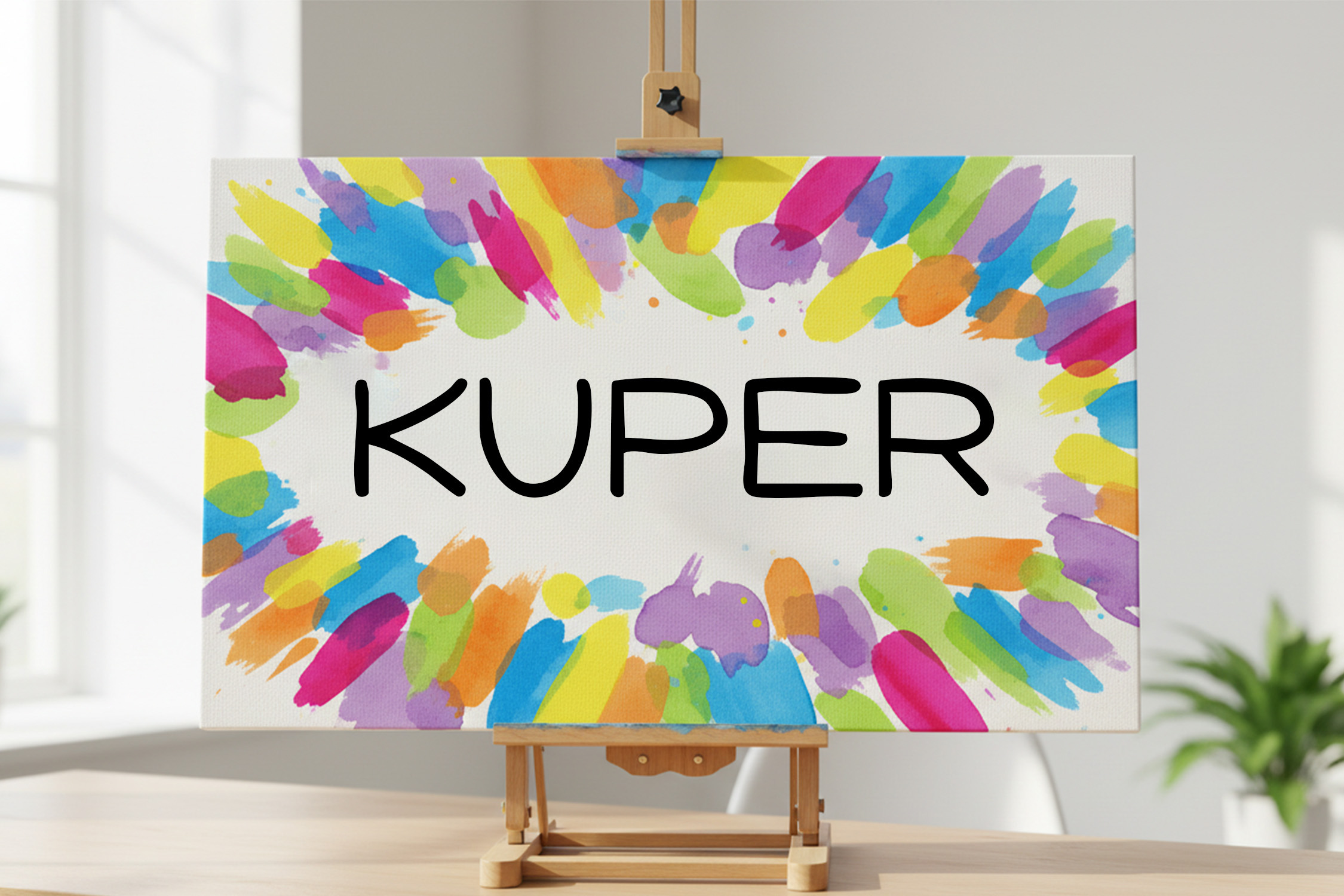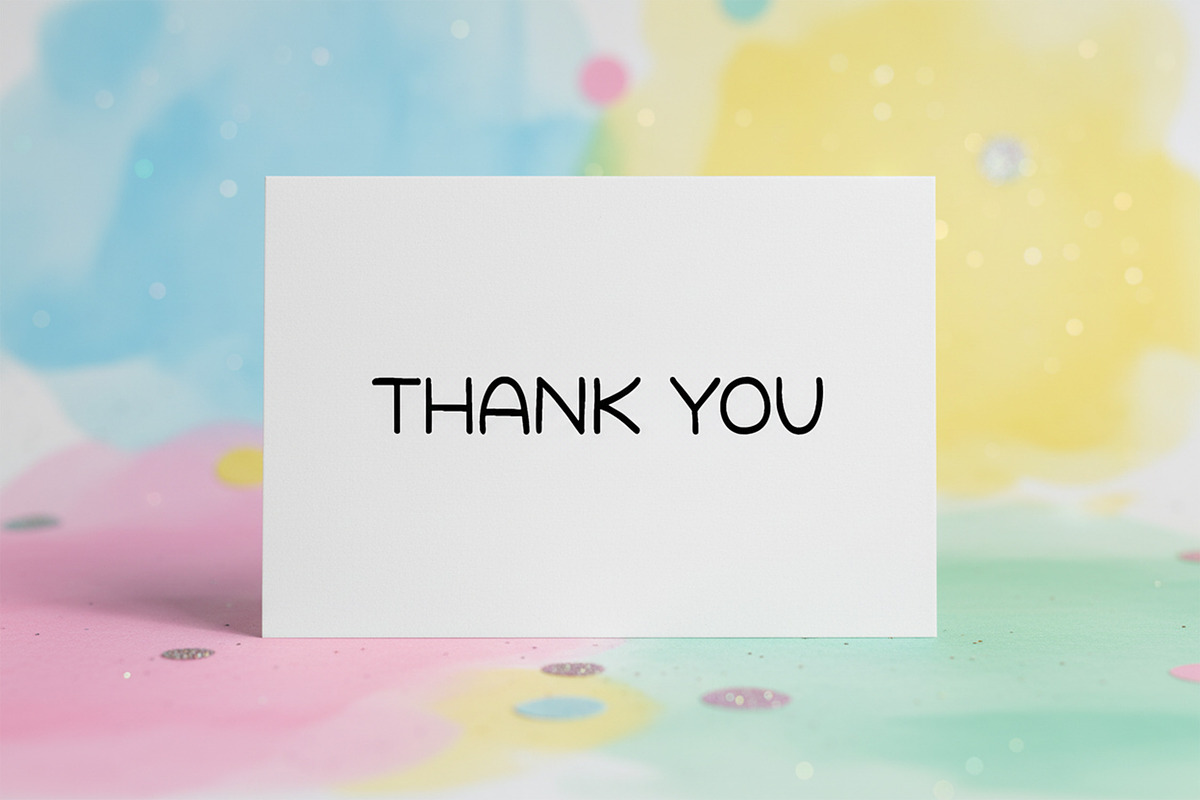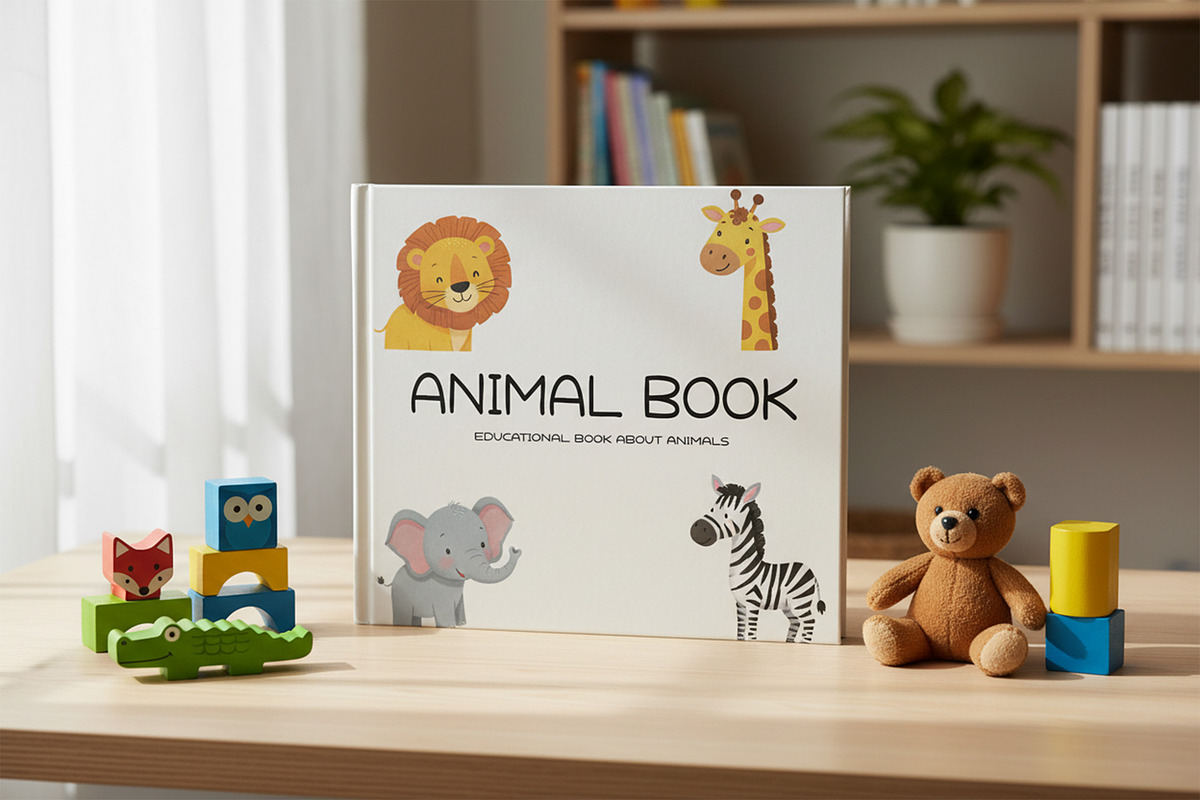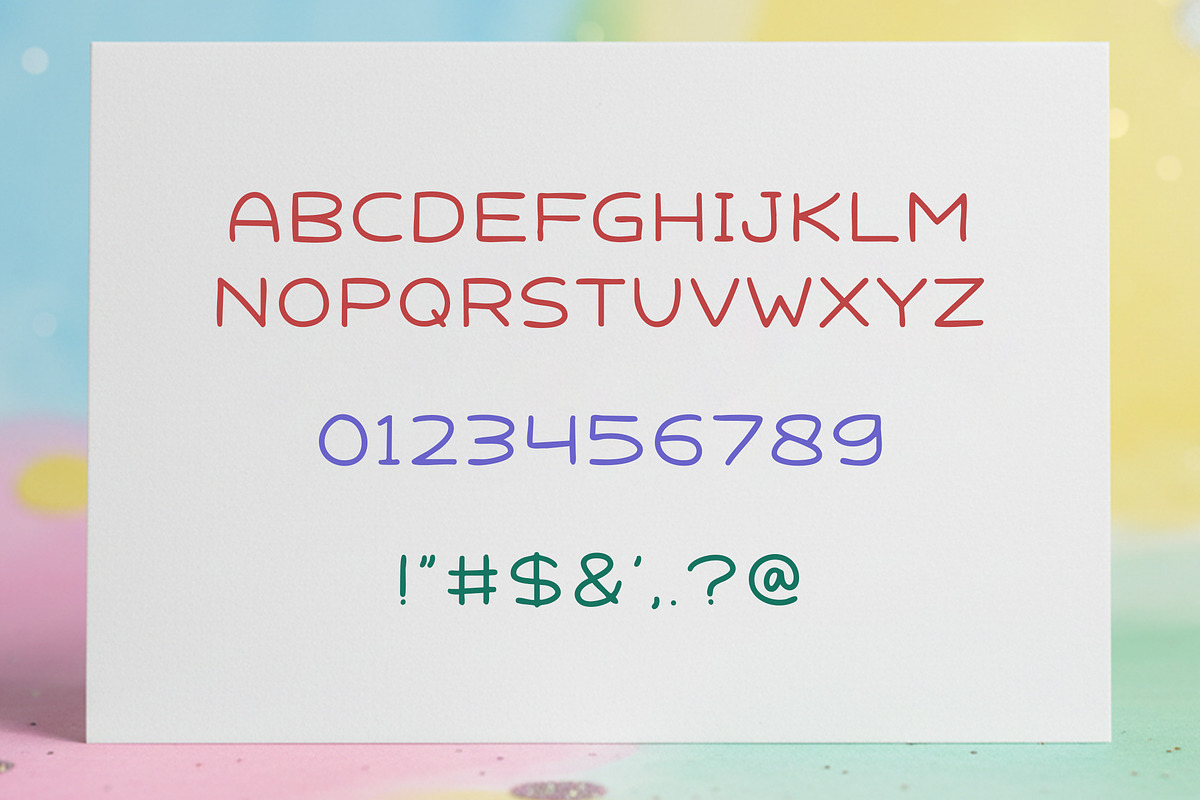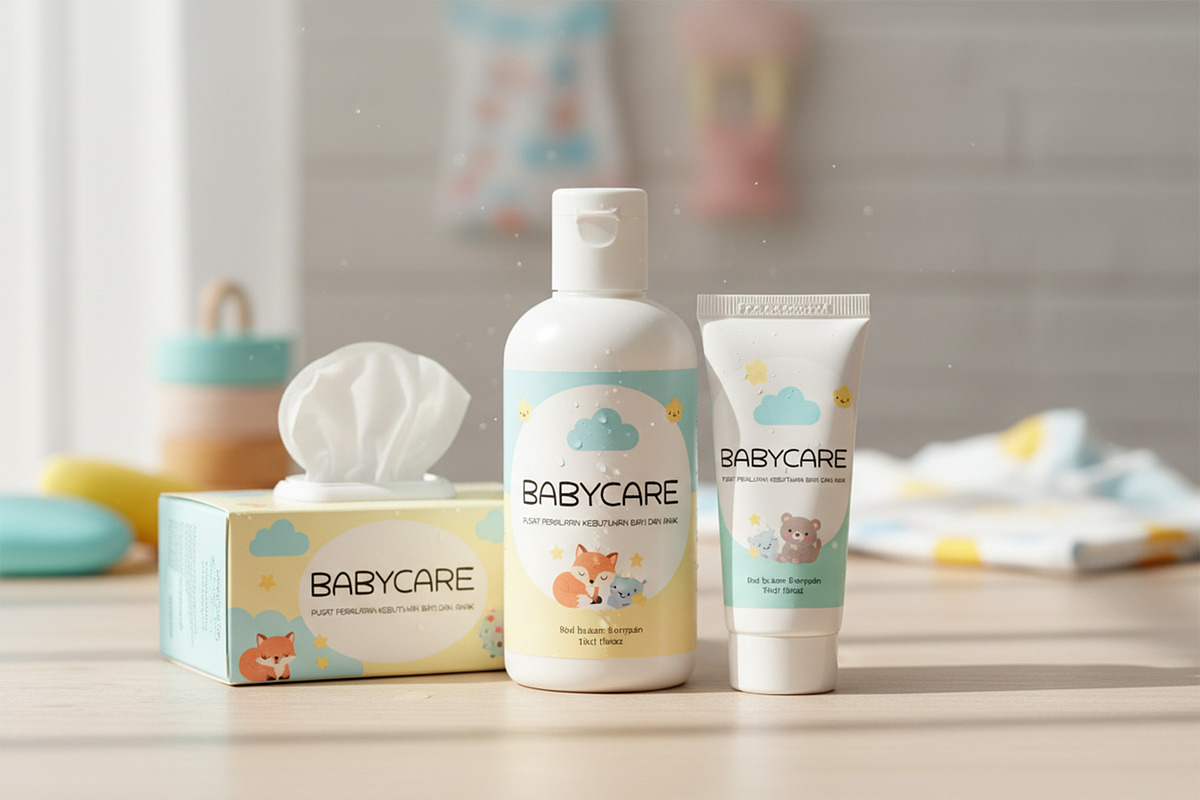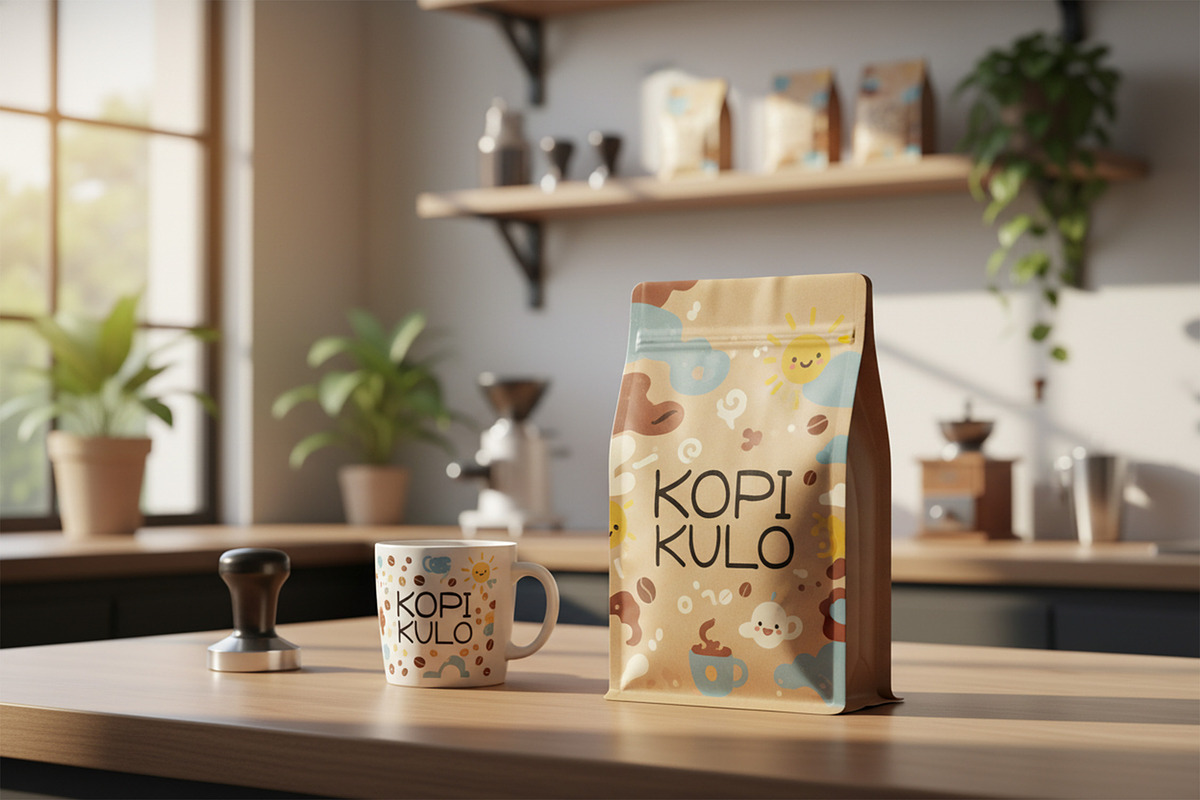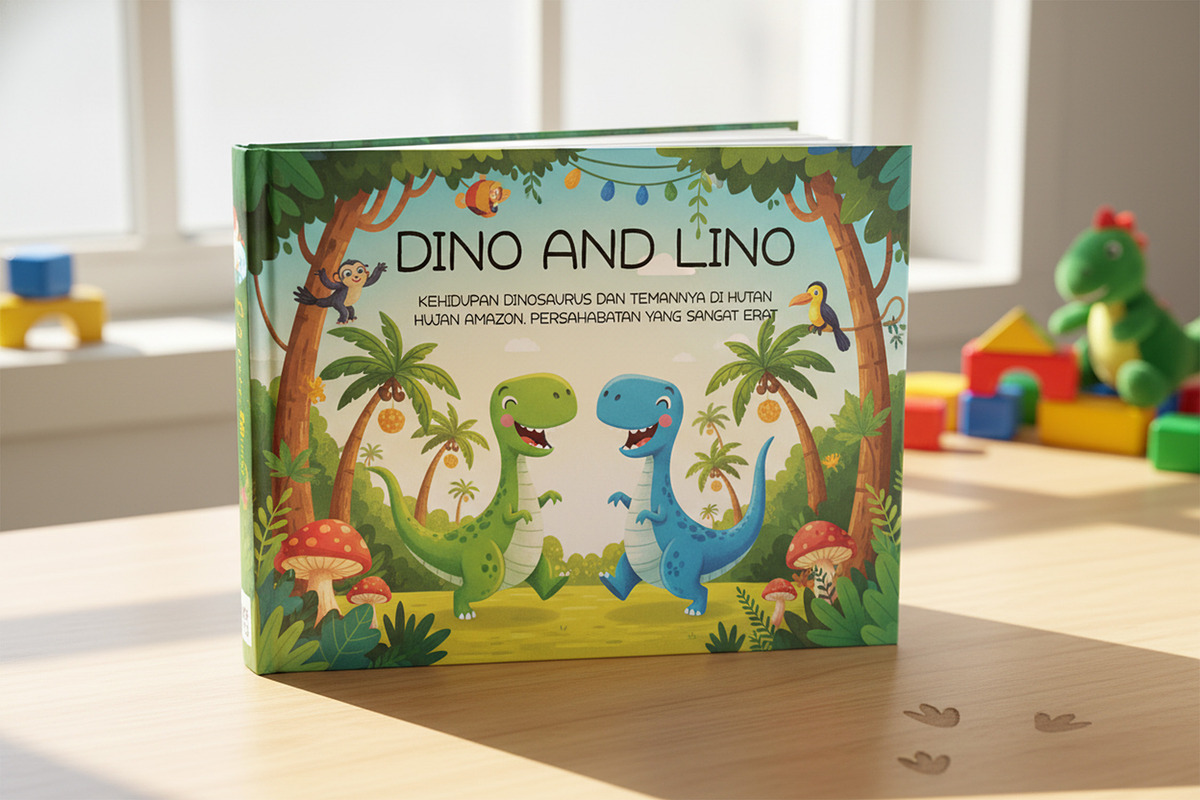
KUPER Monoline Handwritten Font
KUPER Playful Handwritten Font brings a cheerful, friendly, and energetic feel to any design. With its bouncy curves, relaxed strokes, and fun handwritten style, KUPER is perfect for children’s projects, cute branding, product packaging, social media posts, greeting cards, stickers, and creative merchandise. The playful character of each letter adds warmth and personality, making your designs stand out with a joyful, approachable vibe. Whether you're crafting a fun visual identity or adding charm to everyday graphics, KUPER delivers a lively handwritten touch that feels natural and inviting.